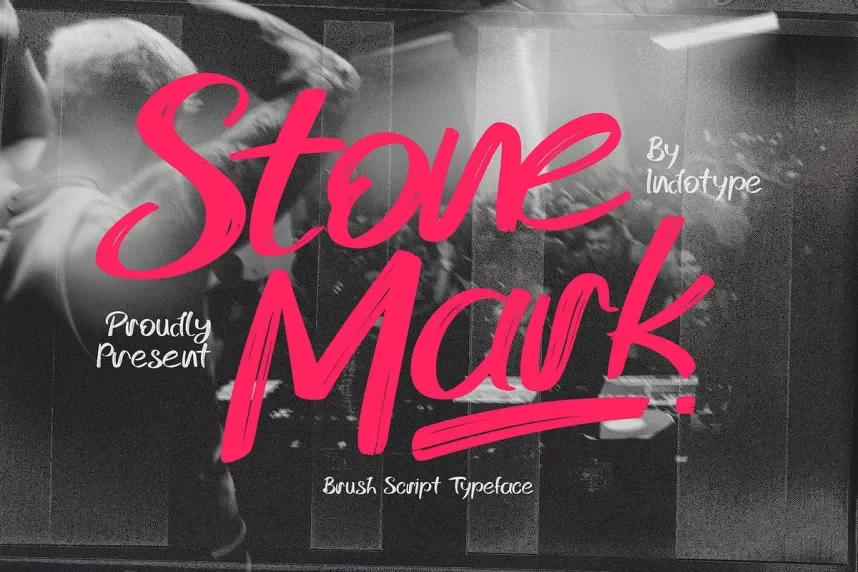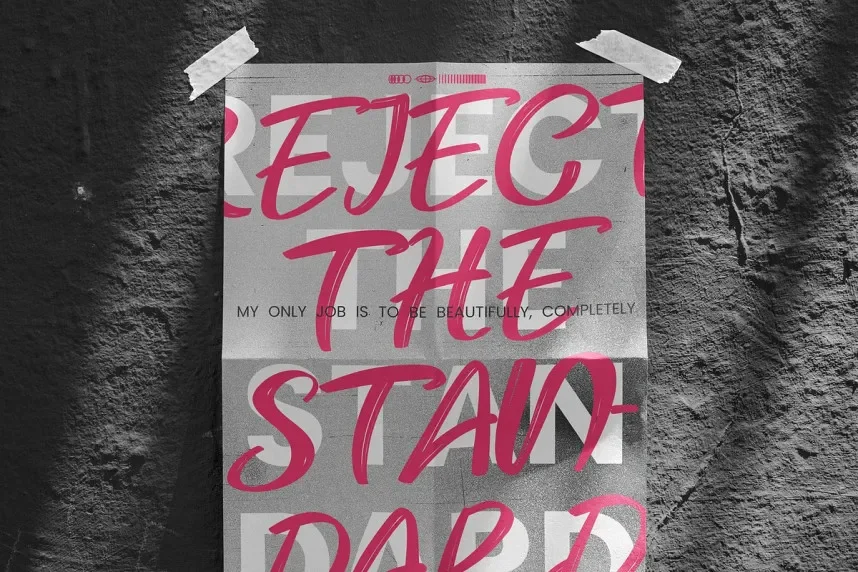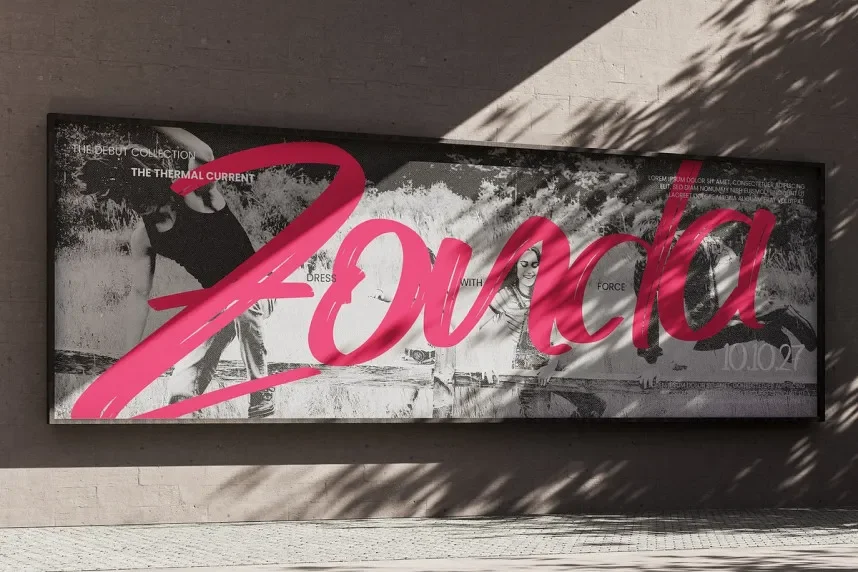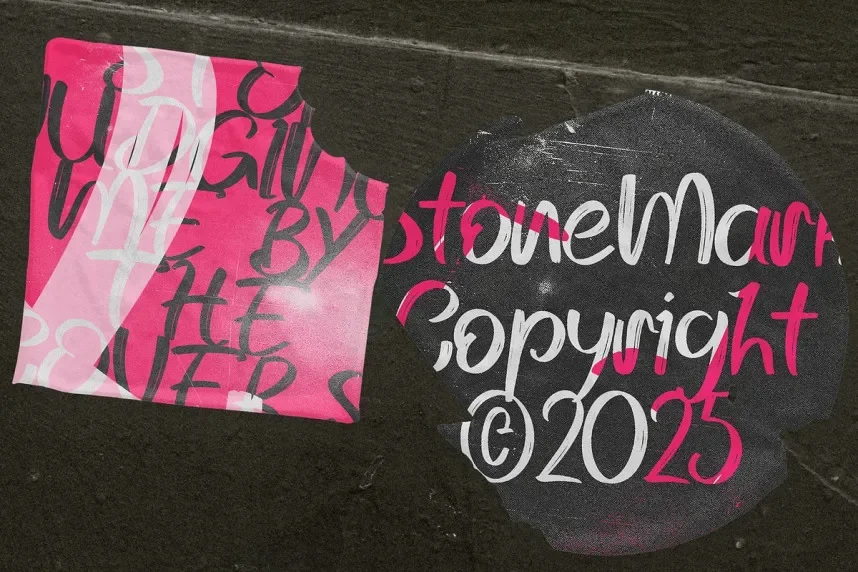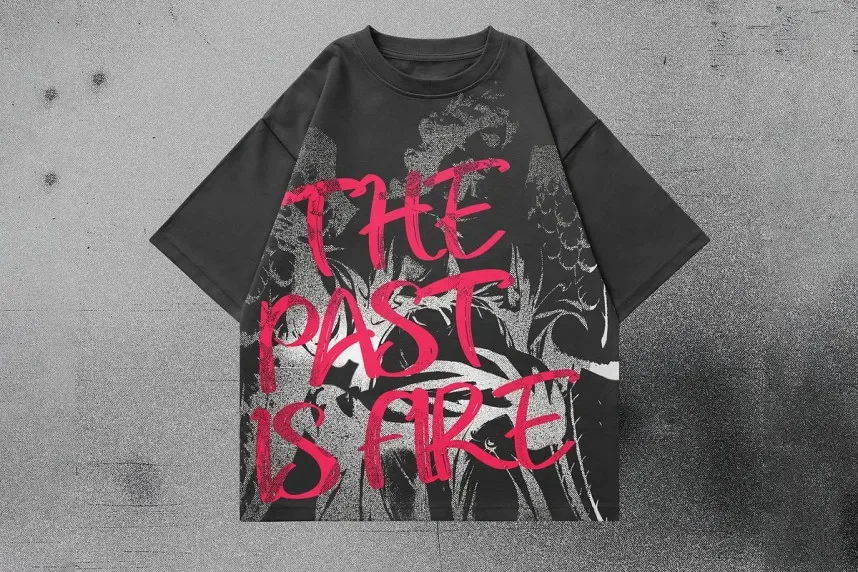
IT Stone Mark Font is a modern serif typeface with a rugged, strong presence. Its sturdy letterforms and high contrast strokes make it perfect for bold designs that require durability and strength, such as logos and advertising.